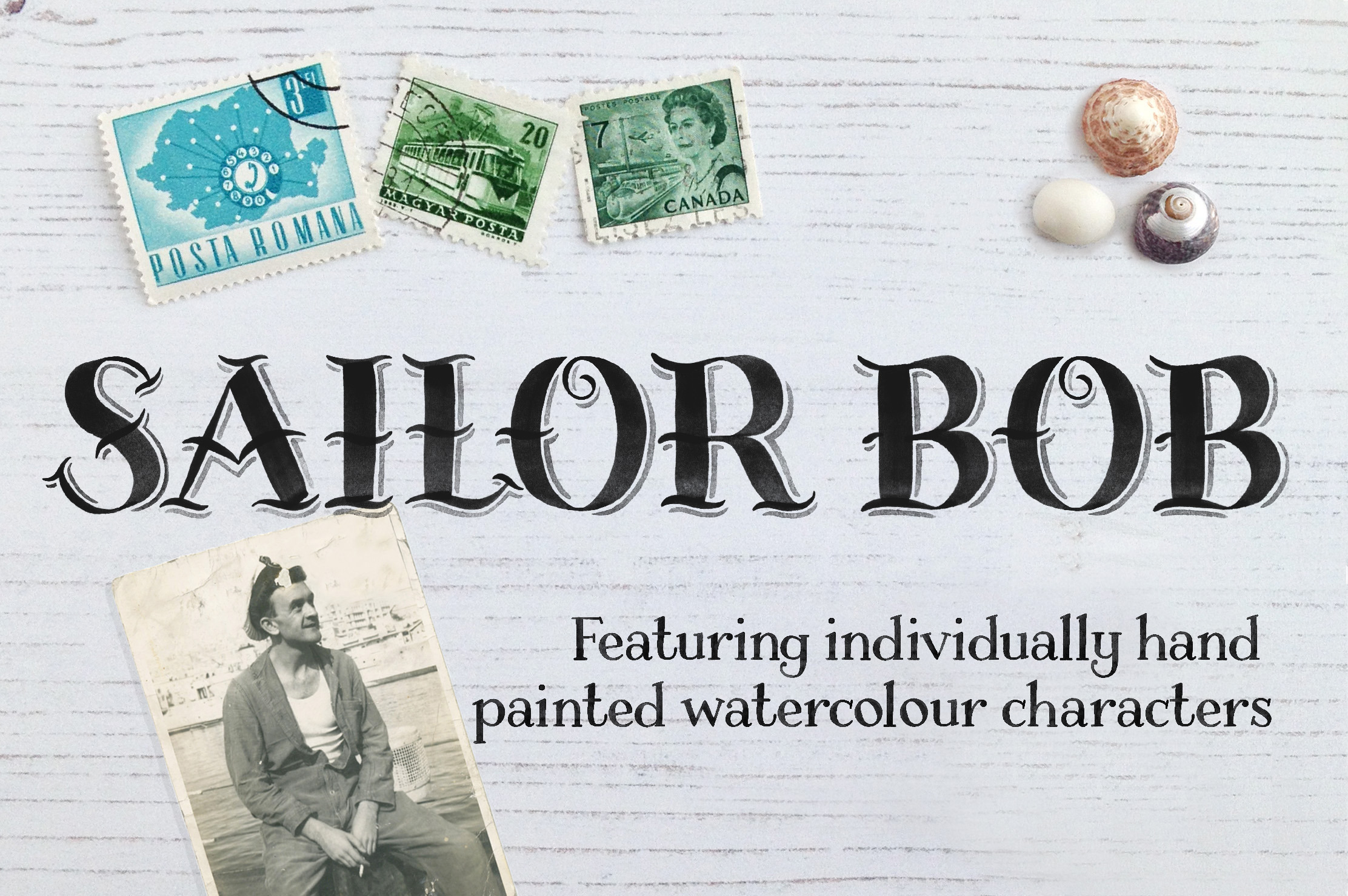
Sailor Bob Watercolour Display Font
A nautical inspired watercolour display font, featuring individually hand painted characters with genuine, soft brush stroke textures. Suitable for high resolution print.